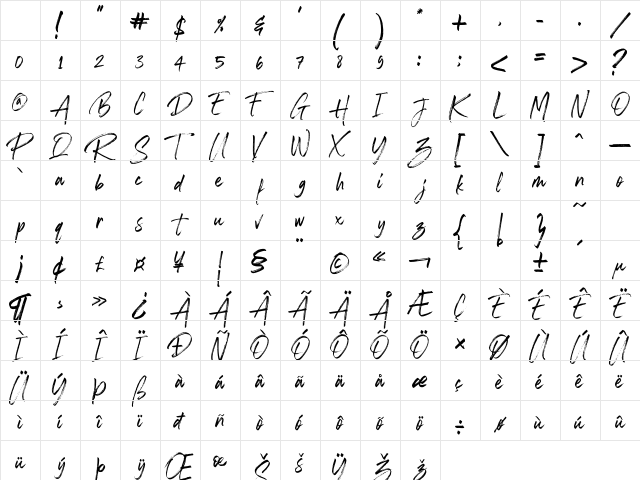
Complete Rockville Solid Regular glyph index. Displaying only characters natively supported by Rockville Solid Regular font.
Rockville Solid is a composed and adaptable typeface that performs quietly and consistently across a wide range of design contexts.